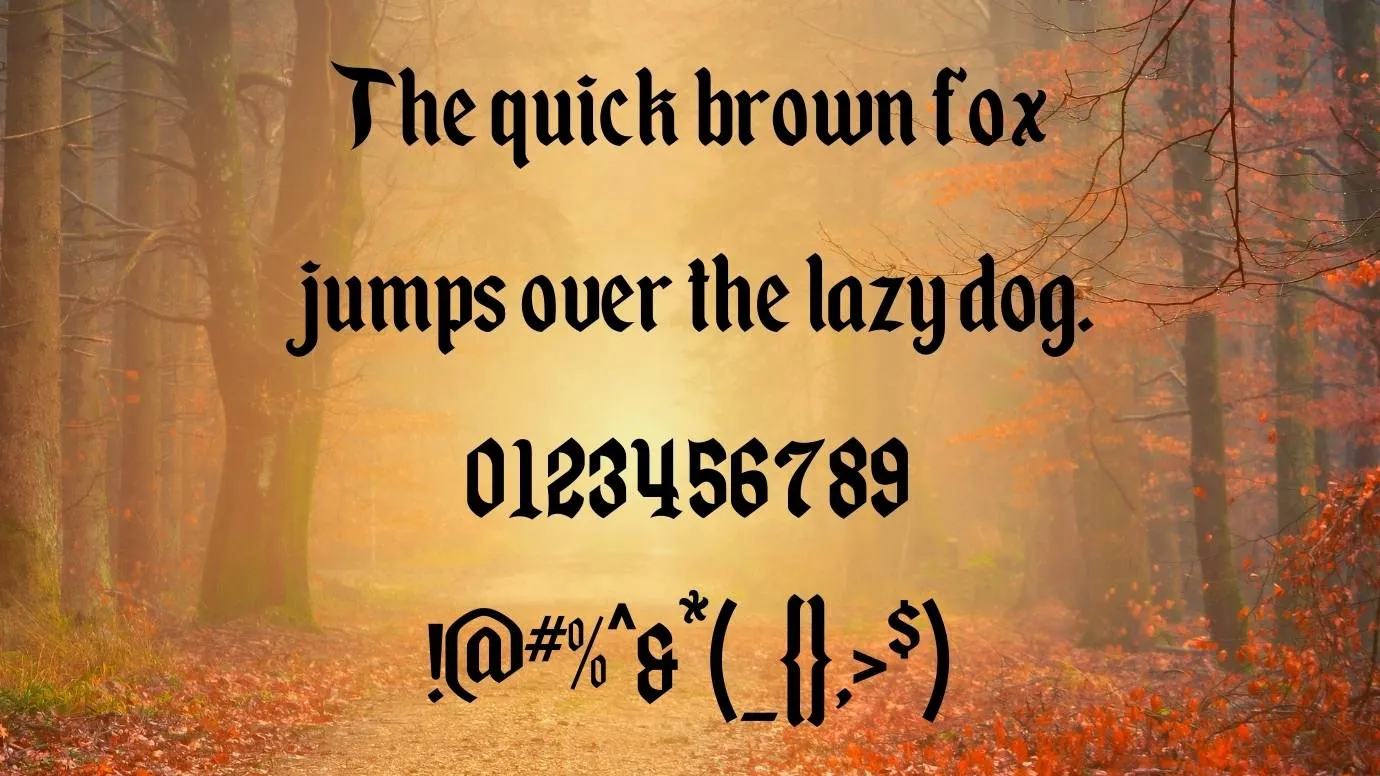
Enchanted Forest Font is a group member of the Display family. This typeface is cool, kinky, and jocund in its style, this texture feature is a clean glyph set with European diacritical and accents. The impulsive style of the caps flows with consistency and surface in the digits and many other tags.
This is an amazing and unique typeface that has a great view for displaying one of the cute and decorative textures. Moreover, this typeface has designed the inspiration kids’ attraction as like kids’ cartoons and writing a book of classic stories. this is a unique style of the typeface which may like from any stage of clients and users.
This amazing typeface is mostly used in children-related designs, this is an outstanding design for cartoons, it has a perfect match with children’s games.
This font gives a wonderful result on book covers, quotes, it has stunning titles and brand names, this is very good with posters and movies created for children. Any creation that required a touch of beautiness, so this is a perfect choice for that.
This wonderfully unique and lovely style of typeface is designed by Dennis Ludlow. one of the famous designers of all unique typefaces.
The font family contains regular style. These single-style weights include uppercase and lowercase alphabets, glyphs, numbers, and other symbols with a wide range of language supports.
| Name | Enchanted Forest |
| Style | Display |
| Designer | Dennis Ludlow |
It can support many languages.
What is Enchanted Forest Font?
this texture is a group member of the Display family. this typeface is cool, kinky, and jocund in its style,
Is Enchanted Forest Font decorative?
This texture is a group member of the Display family. this typeface is cool, kinky, jocund and decorative in its style,